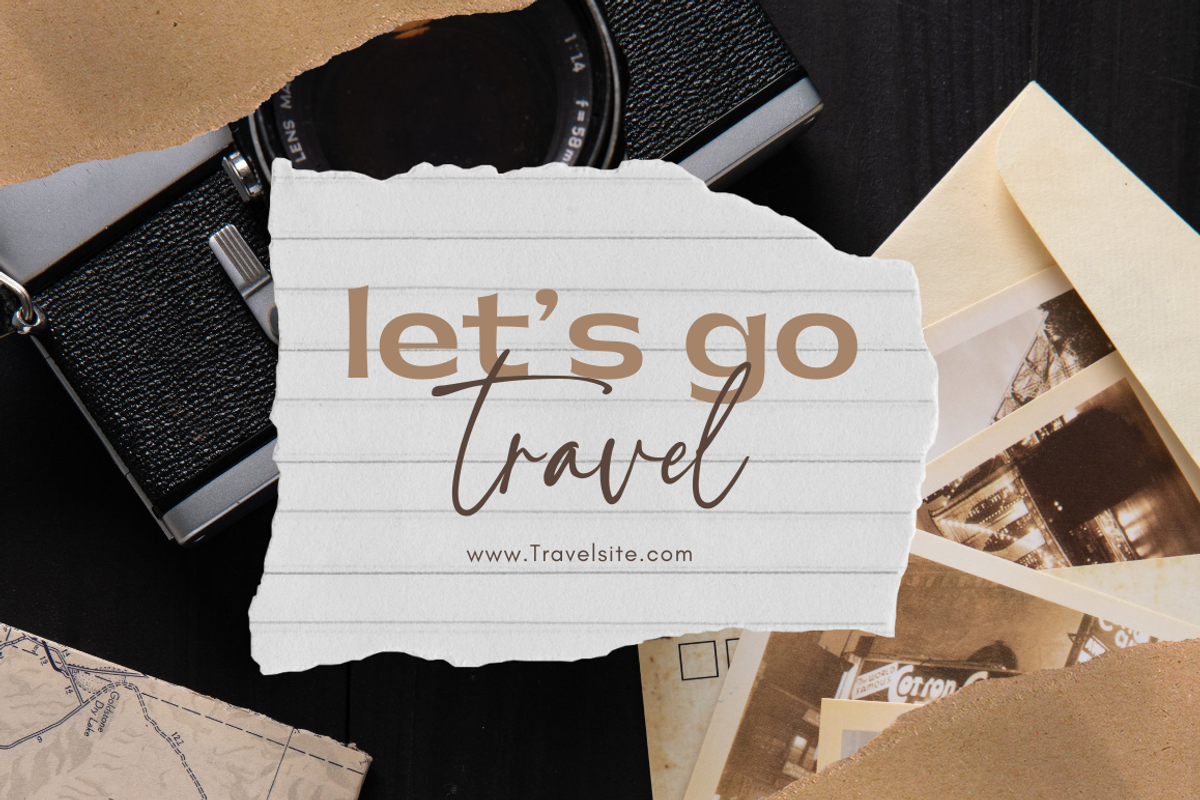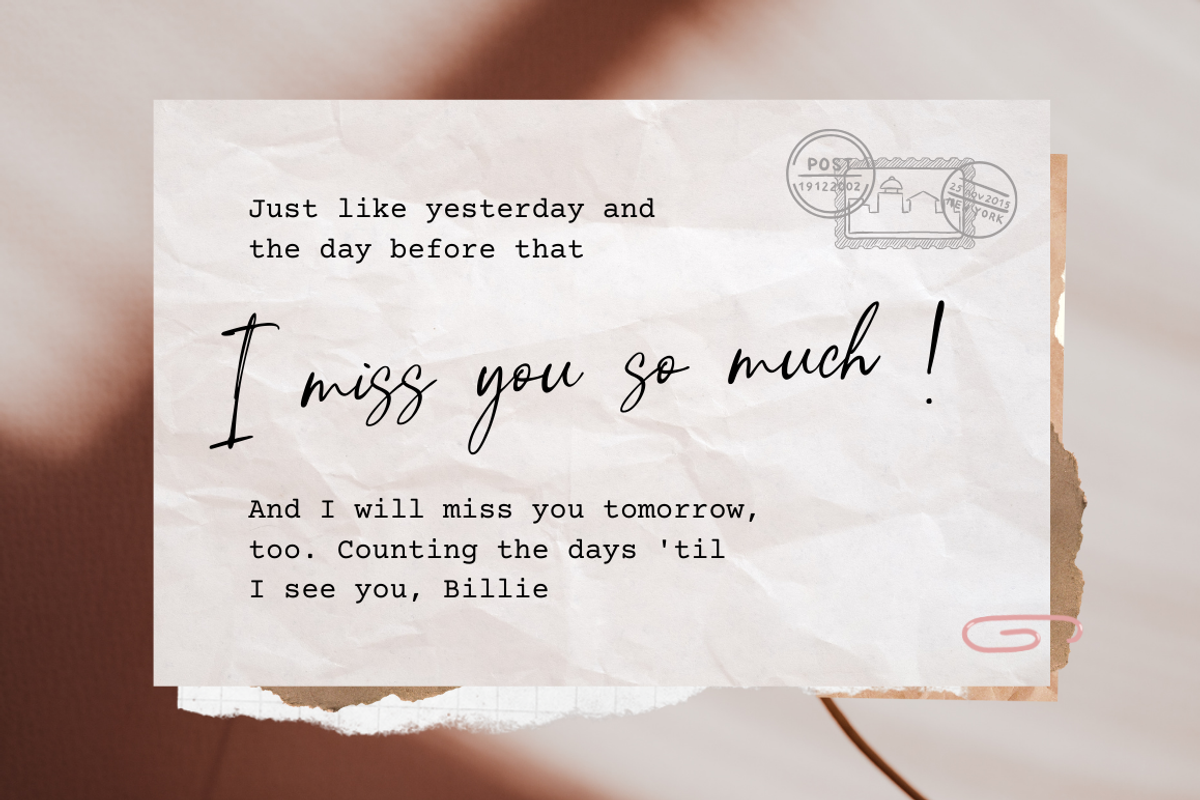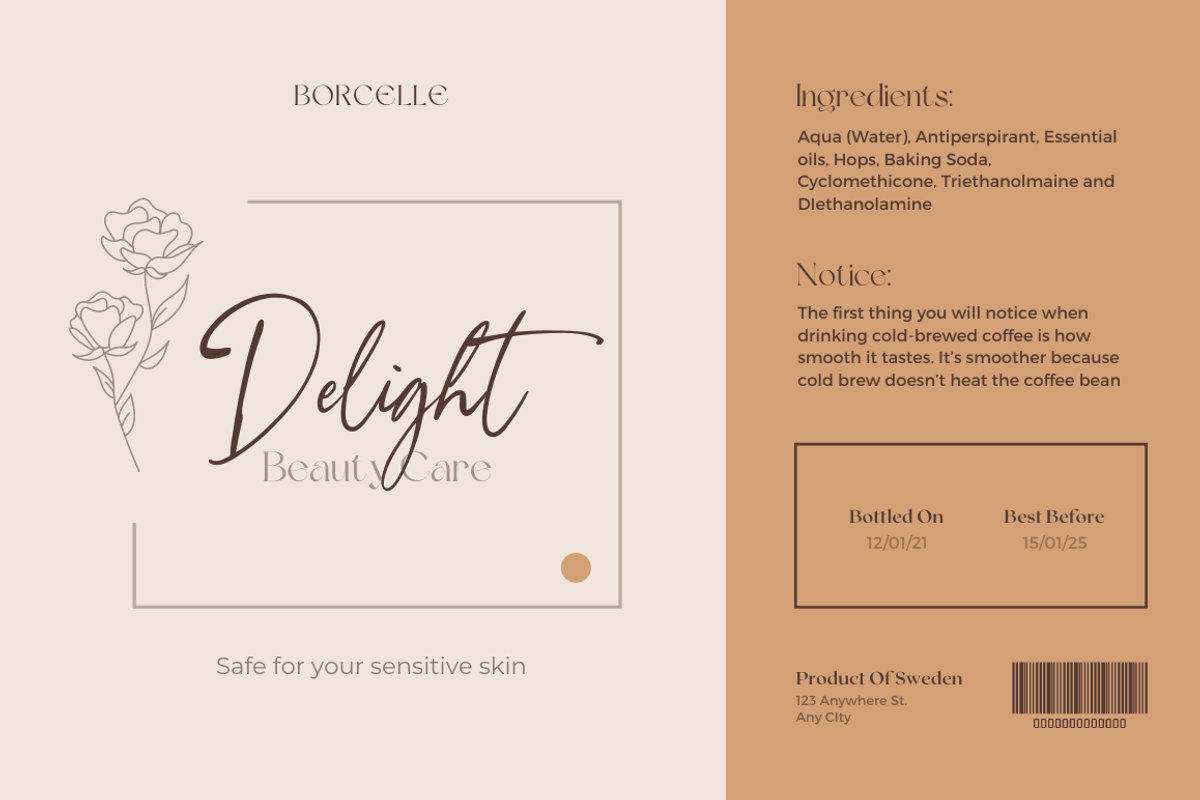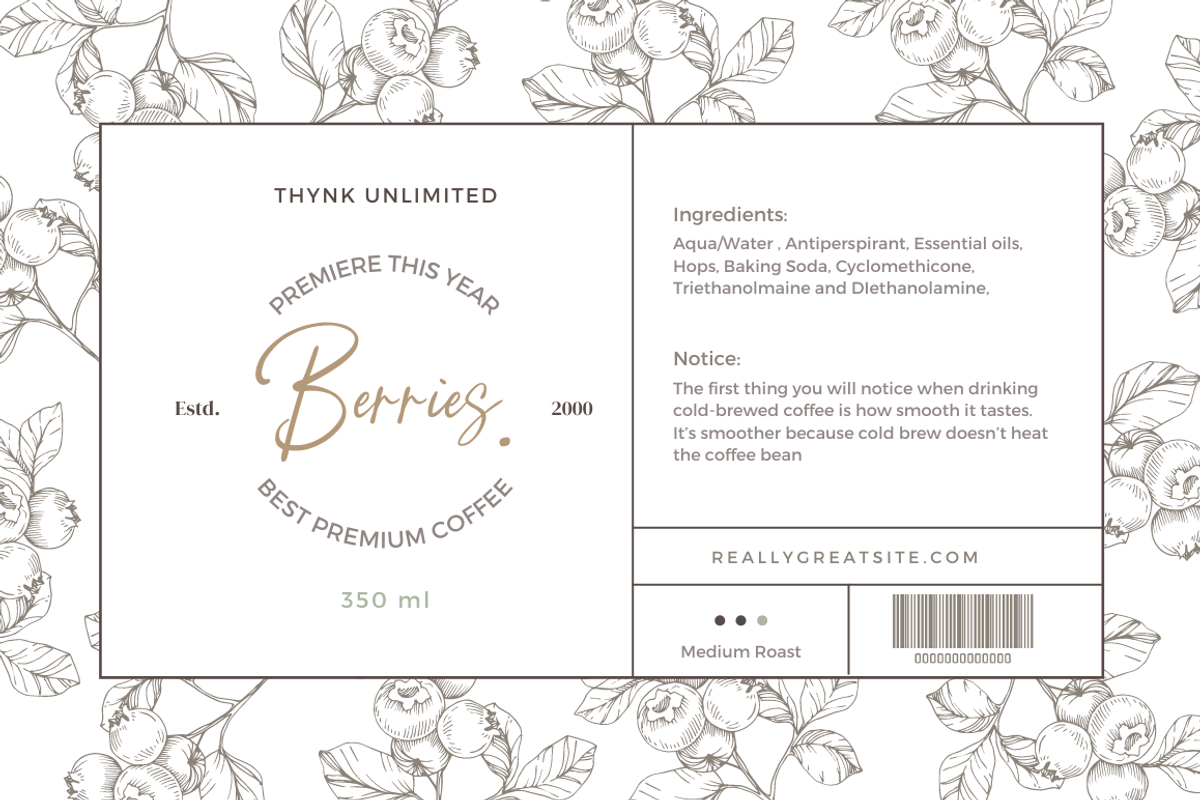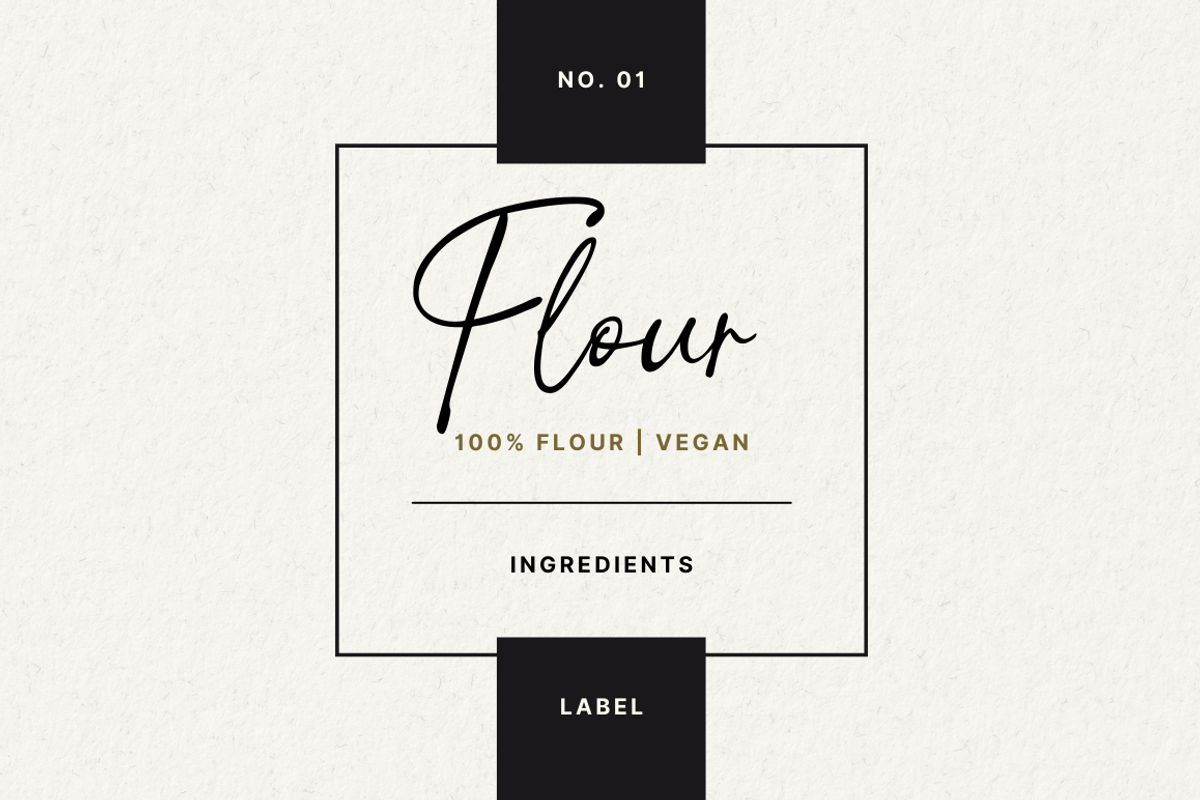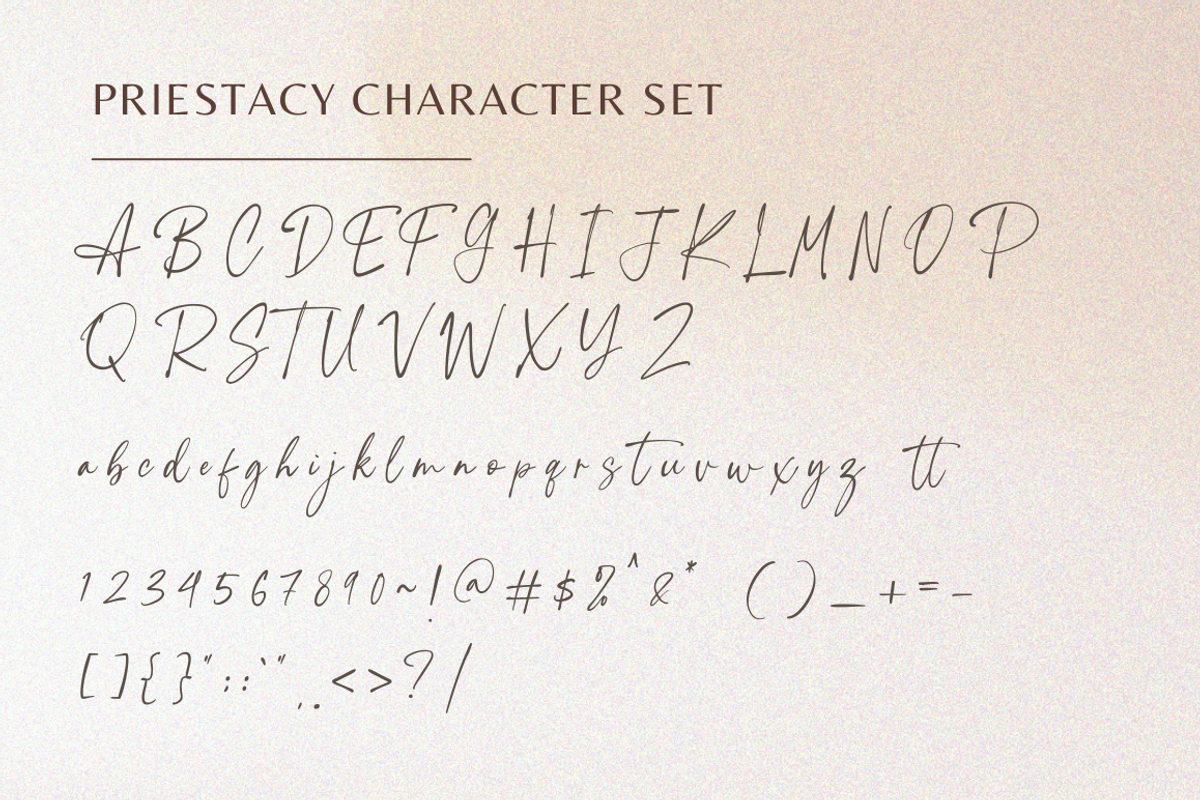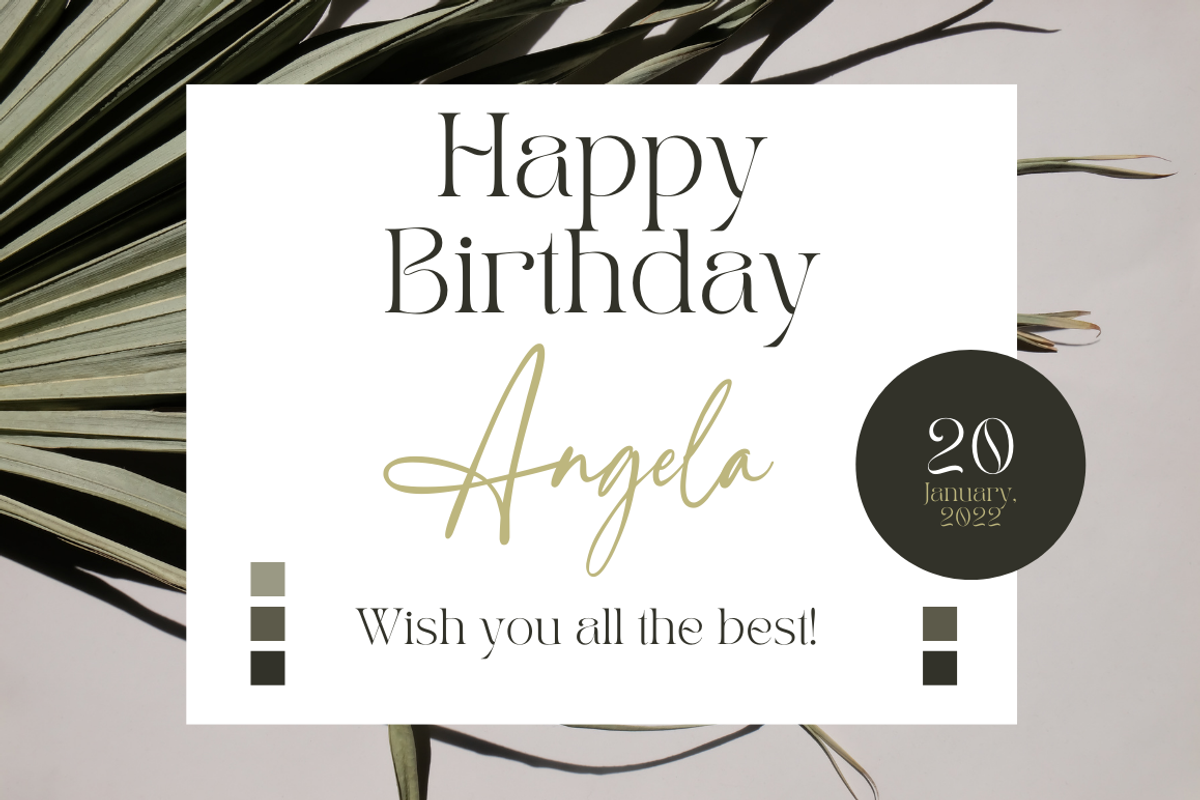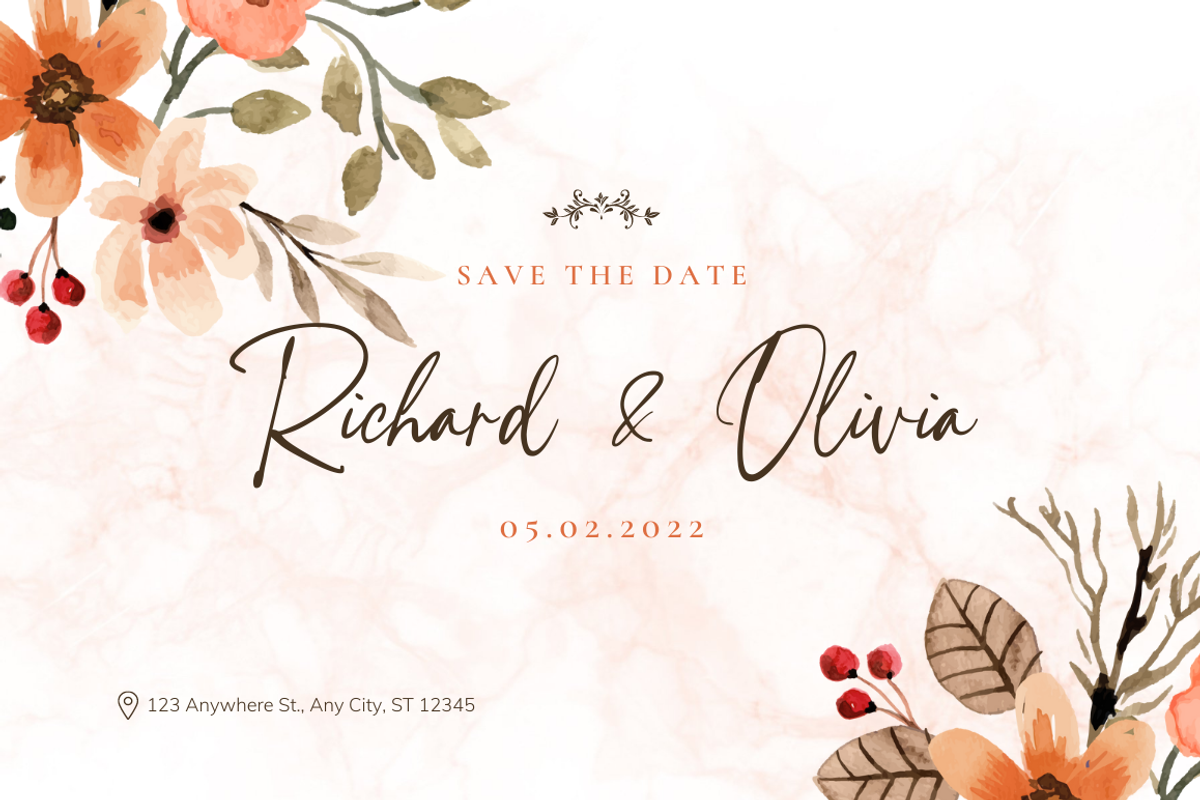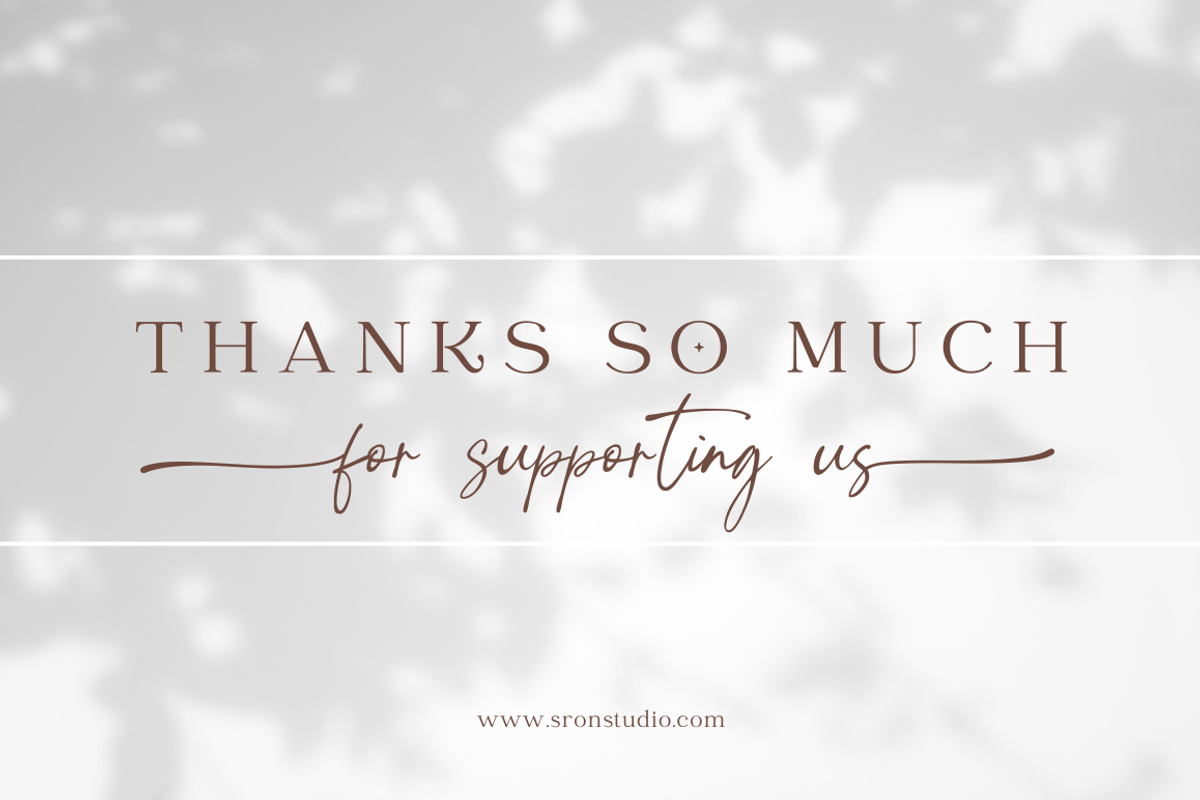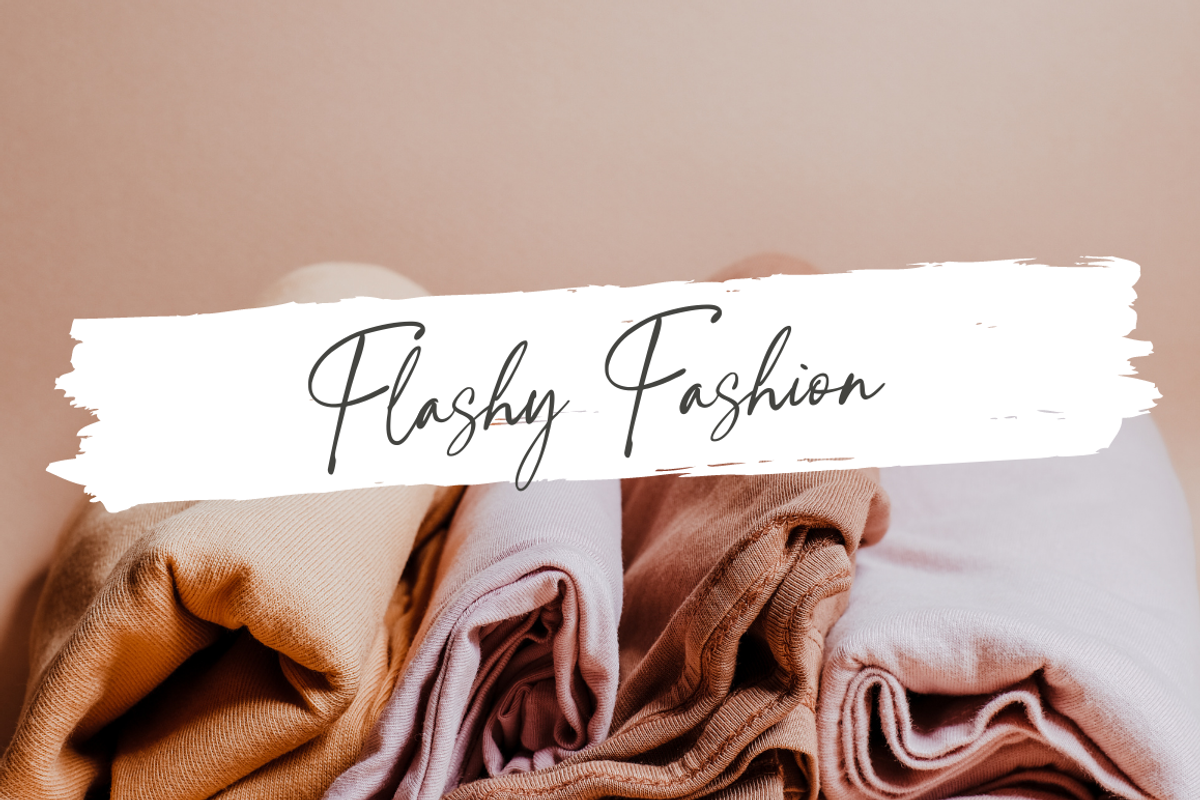
Priestacy // Handlettering Font
Priestacy Font, this font is perfect for branding, invitation, stationery, wedding designs, social media posts, advertisements, product packaging, product designs, label, photography, watermark, special events, and more.
- Uppercase and lowercase letters
- Swash alternates
- Multilingual symbols, numerals, and punctuation